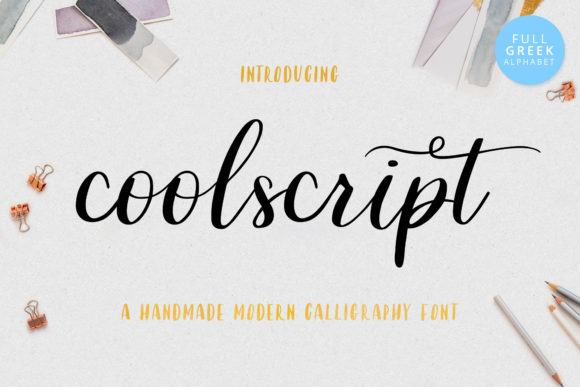
Unleash the Magic of Coolscript: A Captivating Script Font That Will Transform Your Designs
In a world of ordinary fonts, Coolscript emerges as a breath of fresh air, a script font imbued with a unique charm and a touch of playfulness. Its graceful curves and distinctive style add a touch of sophistication to any project, leaving a lasting impression on your audience.
Imagine crafting wedding invitations that exude elegance and romance, with text that flows like a gentle whisper. Coolscript's inherent beauty lends itself perfectly to creating heartfelt messages and heartfelt expressions, making it the ideal choice for capturing life's most precious moments.
Coolscript possesses an undeniable versatility, effortlessly adapting to a wide range of creative endeavors. Whether you're designing eye-catching logos, crafting captivating social media posts, or creating stunning website headers, this font commands attention and leaves a lasting impression. Its unique character adds a touch of fun to children's designs, making it a beloved choice for creating posters, storybooks, and educational materials.
With Coolscript in your design arsenal, you'll find endless opportunities to showcase your creativity. Its elegant swashes and flourishes lend a touch of whimsy to any project, making it perfect for crafting invitations, greeting cards, and other personalized creations. The font's versatility shines through in the world of branding and marketing, where it effortlessly elevates logos, brochures, and advertisements, leaving a lasting impression on your target audience.
Coolscript is more than just a font; it's an artistic expression that brings life to your designs. Its ability to convey emotions and create a lasting impact is truly remarkable. Embrace the charm of Coolscript and watch your creative projects flourish with newfound elegance and sophistication.